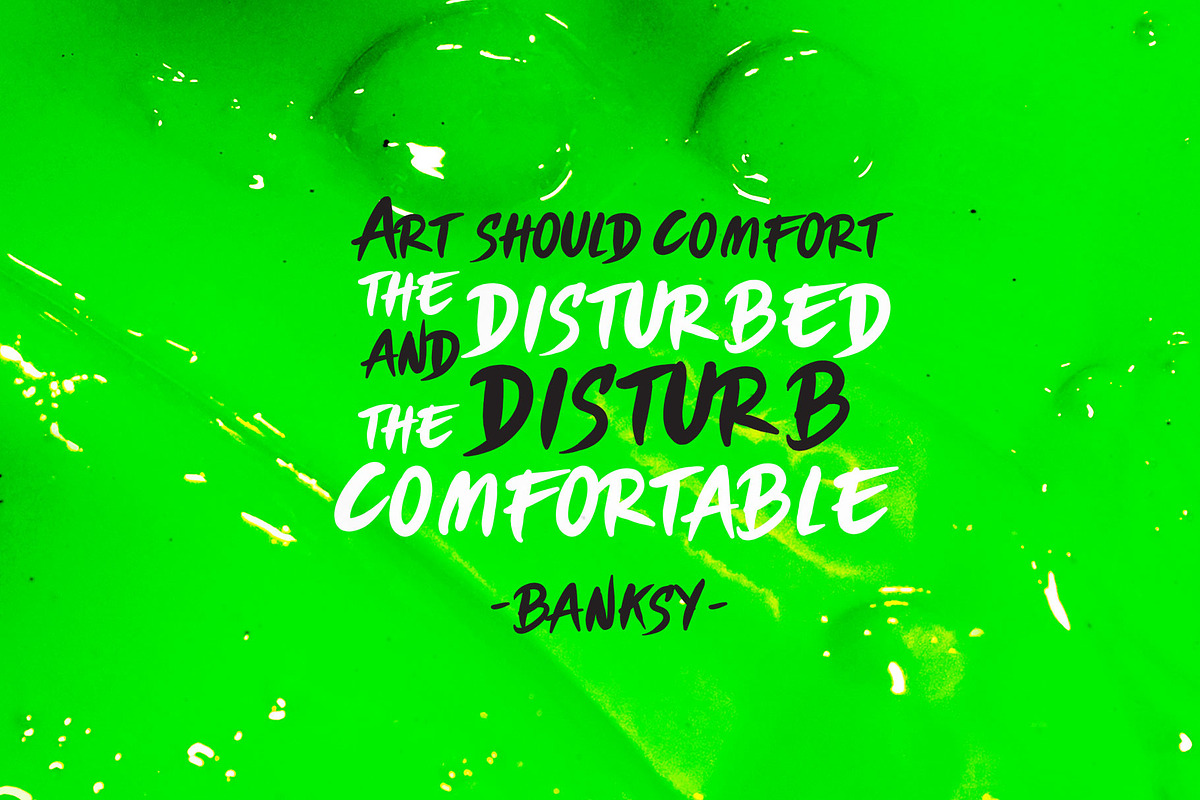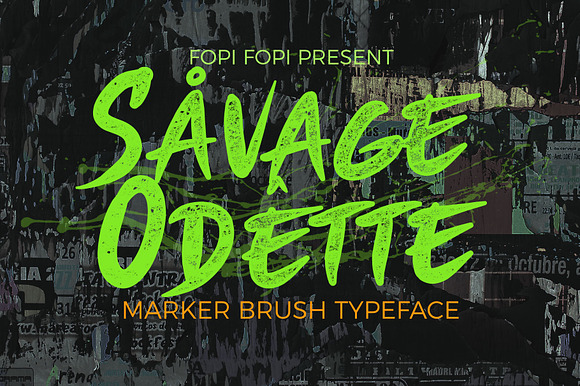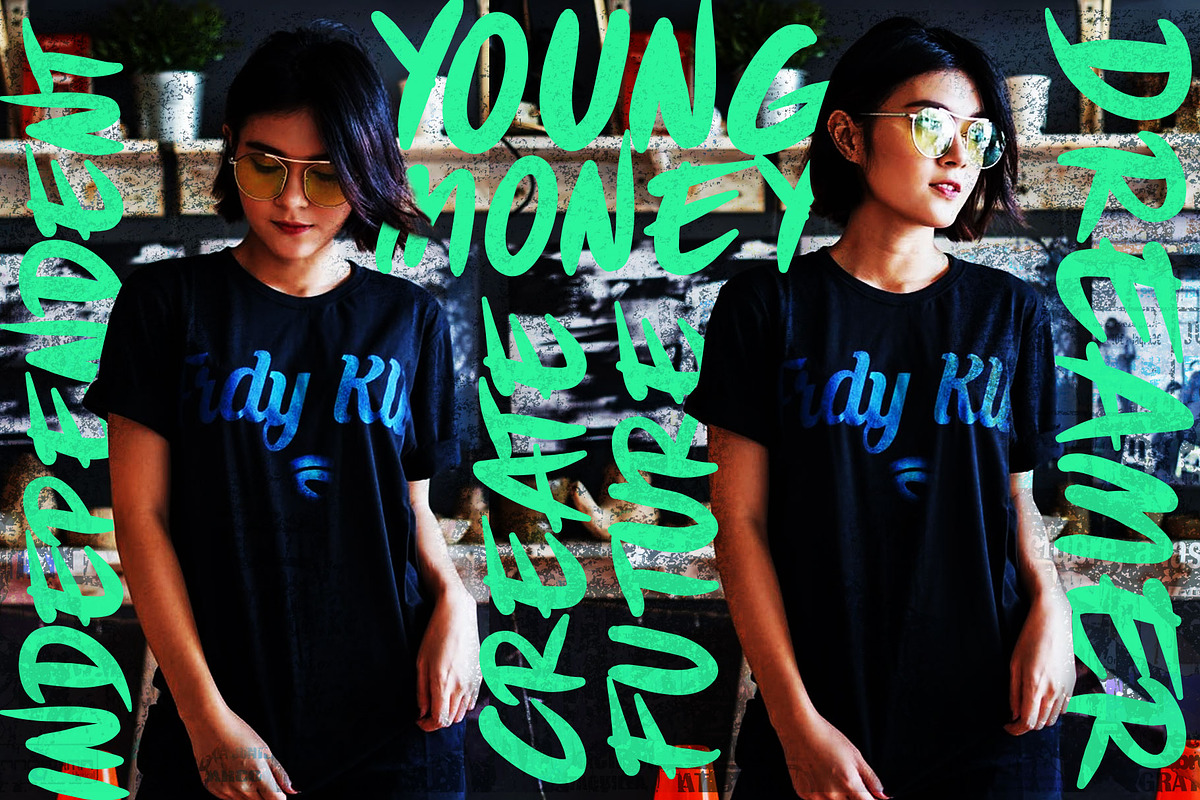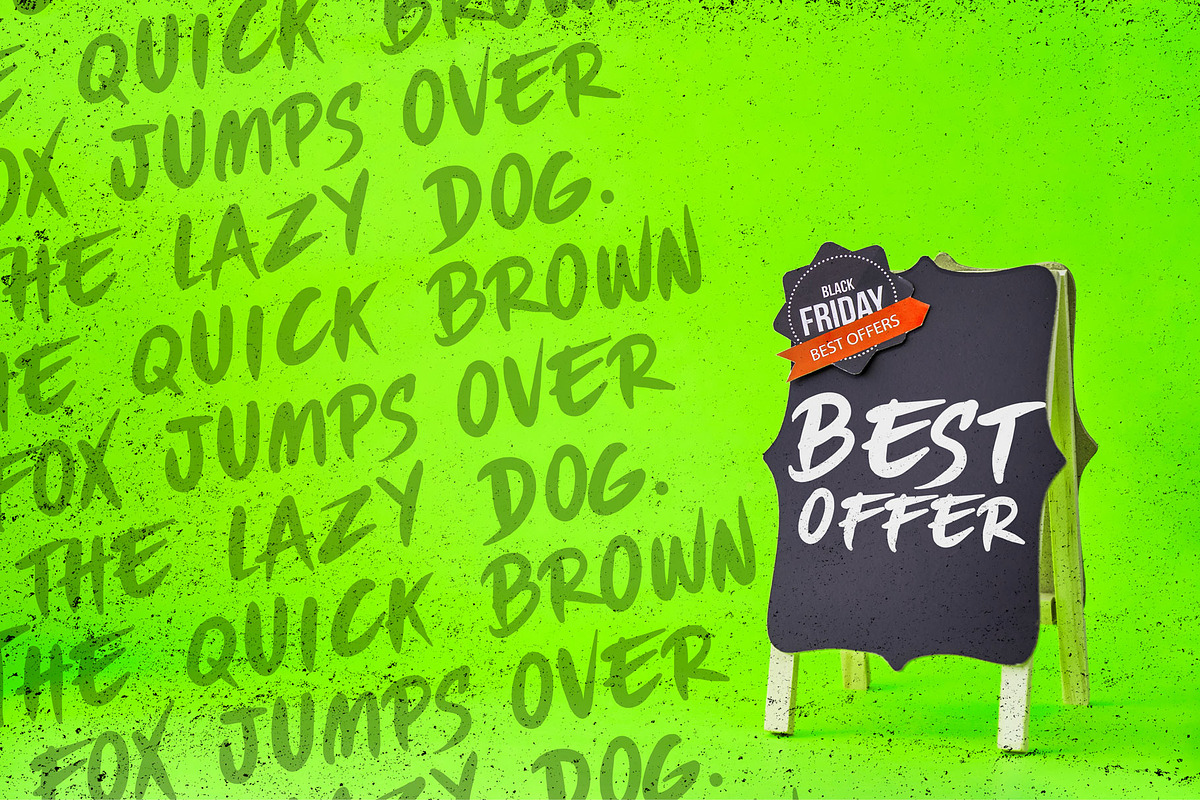
Savage Odette Typeface
Savage Odette was inspired from some designer handwritten with marker and streetwear artwork. The name Savege Odette was innspired by Mobile Legends Game. This font could help to good display, uses for labeling, clothing, art job, t-shirt design, movie sceen, band logo,film title, gigs, cover album. and many more, the sky is your limit. It comes with 240++ characters included Uppercase, Lowercase, Numbers, Punctuations, Currency, and Accents. ;)
Savage Odette Typeface by fopifopi fits naturally into Branding, posters, packaging, typography.